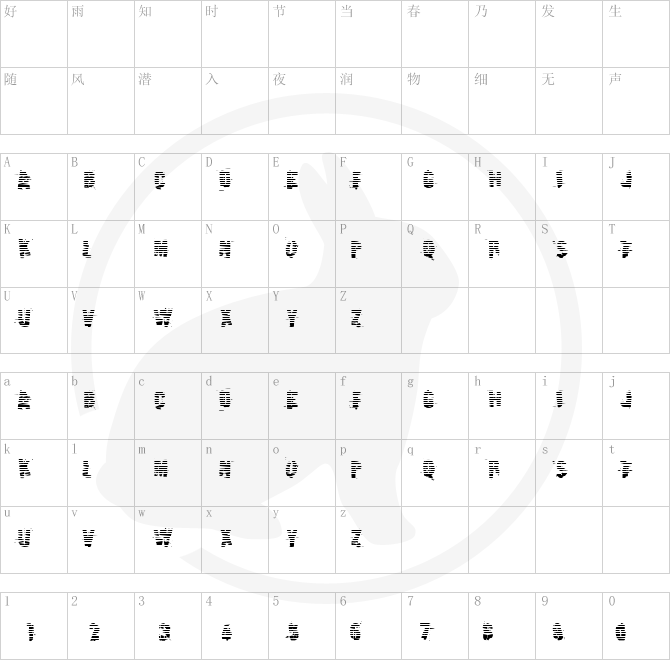
- Font Name:Earthshake Gradient
Earthshake-Gradient.ttf is a very beautiful artistic font, Earthshake-Gradient.ttf is widely used in the design and printing of various books and pictures,Earthshake-Gradient.ttf has a strong visual impact,Earthshake-Gradient.ttf is a commonly used font in newspapers, magazines and books, and is used in posters, e-commerce Poster design, store design, logo design, font design and other fields.Earthshake-Gradient.